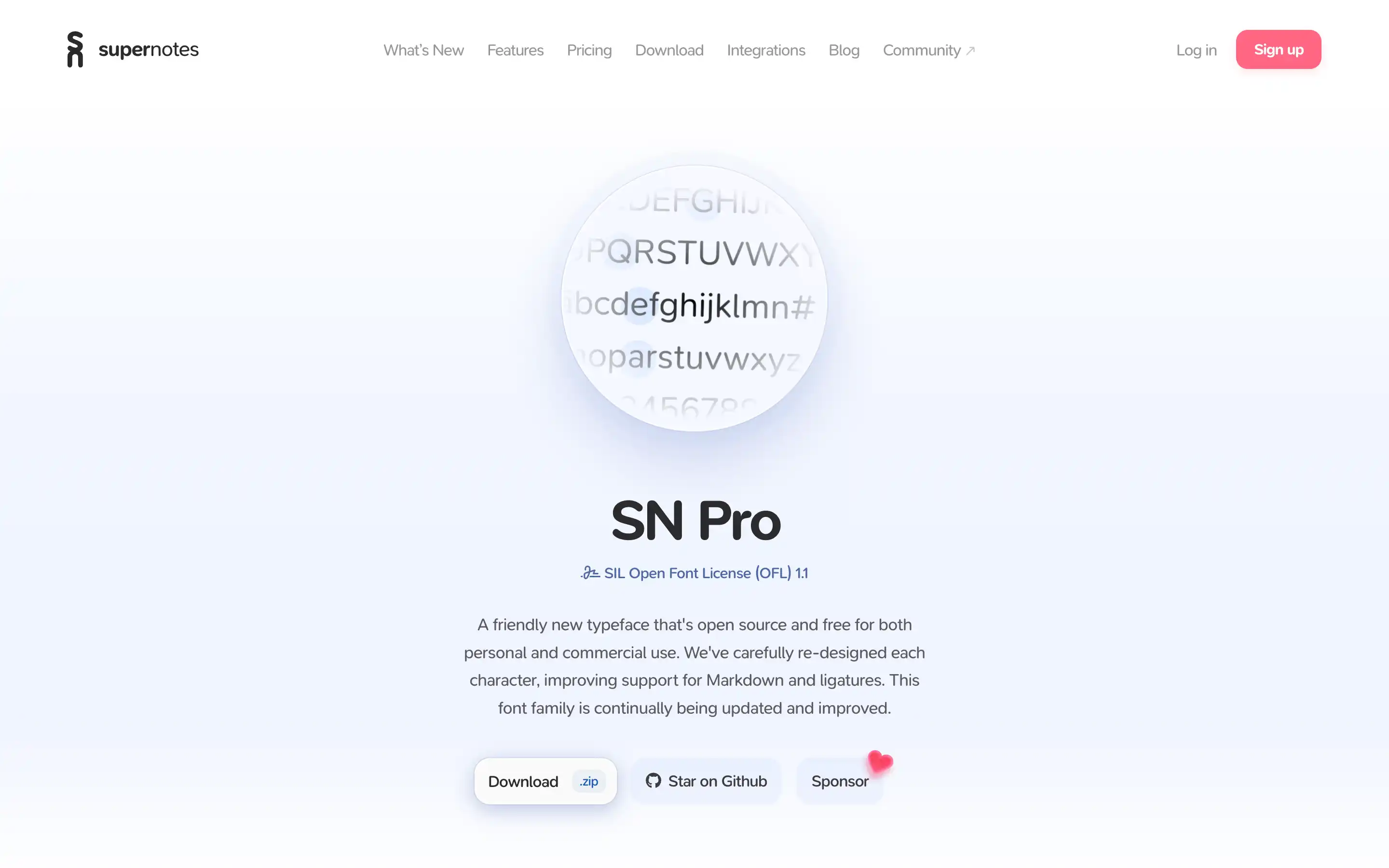
Supernotes has released SN Pro, an open-source typeface designed for improved readability and writing clarity. Based on the Nunito font, SN Pro features adjusted capital heights, refined character spacing, and modifications to letters like ‘Q’ and ‘t’ to enhance its visual balance.
The typeface supports Markdown syntax and ligatures, making it compatible with various note-taking and writing environments. It is available in eight different weights, from Thin to Black, and includes support for both Latin and Cyrillic scripts, with additional language expansions planned. SN Pro is free to use for both personal and commercial projects.